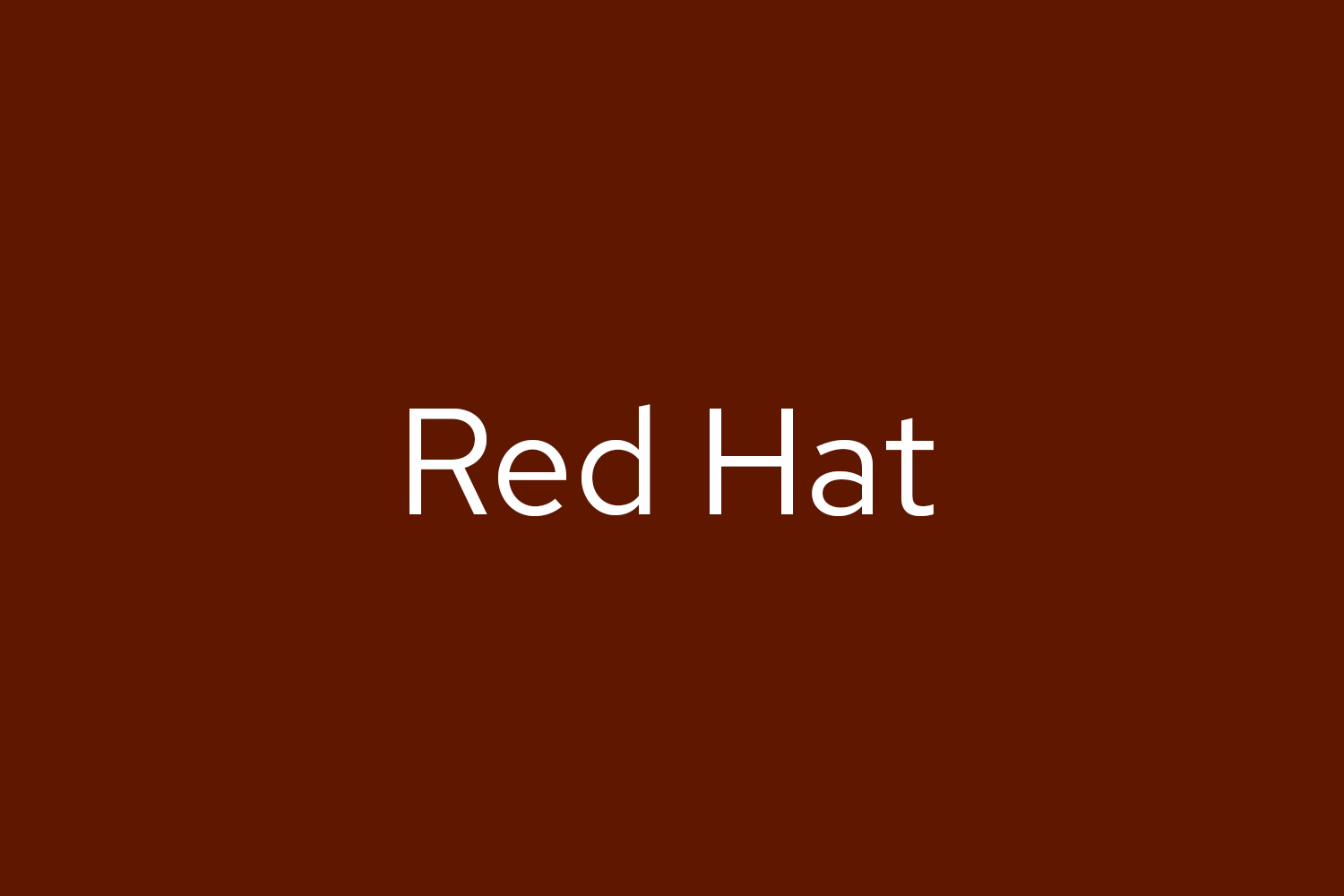
Red Hat Font
Red Hat Font - Web red hat is a family of typefaces produced in 2 optical sizes and a monospace style, in a range of weights with italics.